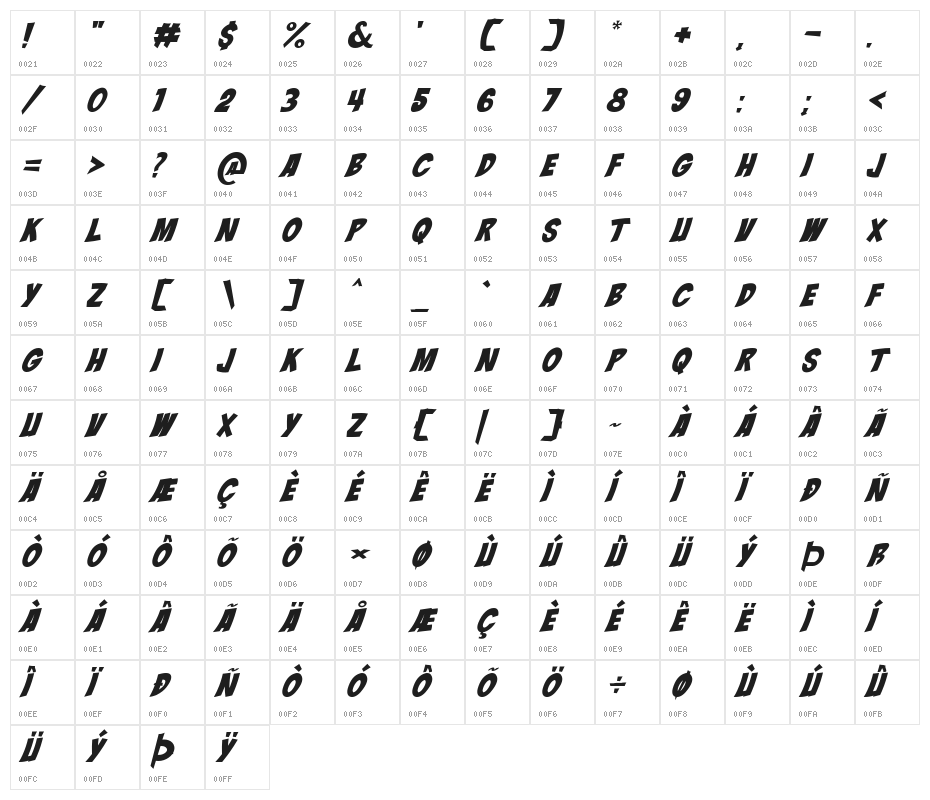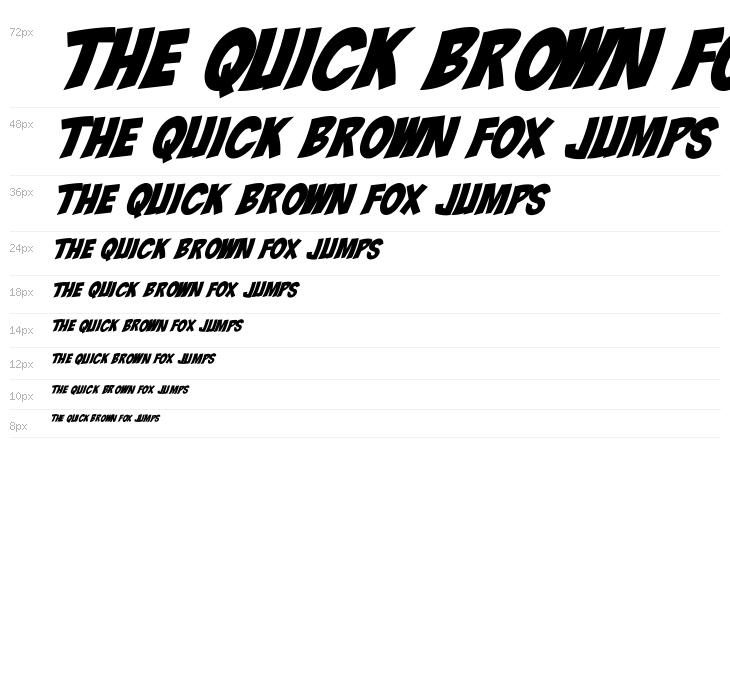
Dunkelheit Italic Font
Dunkelheit Italic Description
This font features a bold, italicized style with a strong, dynamic presence. The letters are slanted, giving a sense of motion and energy. The strokes are thick and consistent, providing a robust and impactful appearance. The characters are tightly spaced, enhancing the compact and cohesive look. This font is designed to grab attention and convey a sense of urgency or excitement. The overall style is modern and decorative, making it suitable for eye-catching designs.
| Proposed Projects | Ideal for posters, headlines, branding, and any design needing a bold statement. |